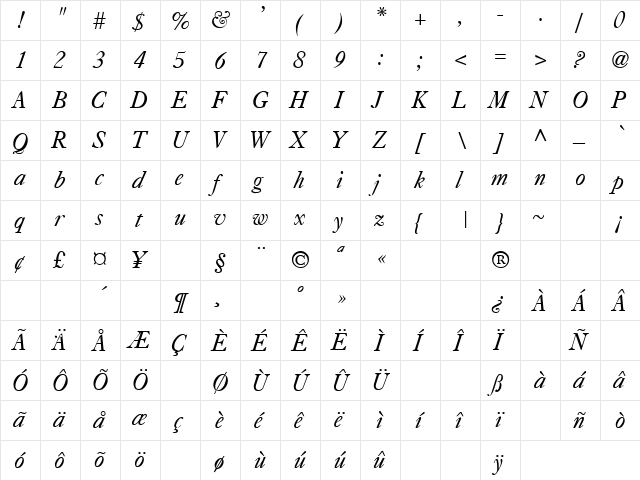
Critical Mass 1 Regular
Design Context for Critical Mass 1 Typeface
Critical Mass 1 is a composed and adaptable typeface that performs quietly and consistently across a wide range of design contexts.